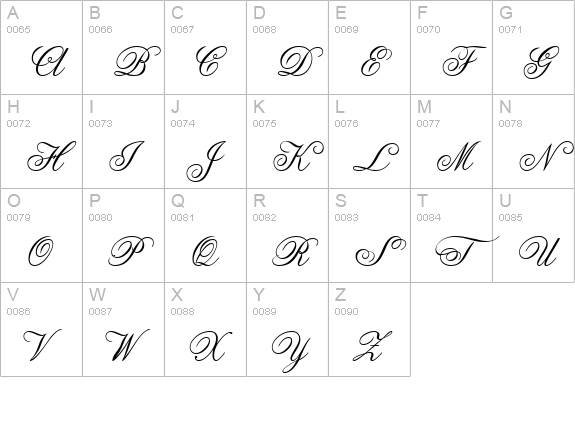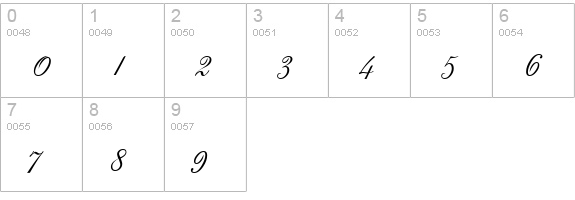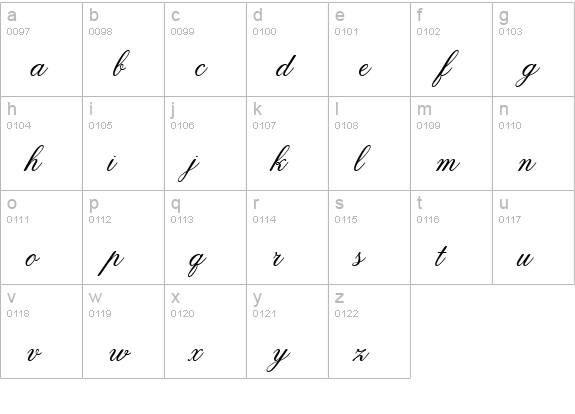
Anglia Script Standard is a beautifully crafted typeface that exudes elegance and sophistication. Its flowing curves and delicate strokes make it perfect for adding a touch of class to any design project. Whether you're working on invitations, branding materials, or packaging, Anglia Script Standard is sure to make a statement. What's even better is that Anglia Script Standard is completely free! You can download this exquisite font at FontsMarket.com, where you'll find a wide range of high-quality fonts for all your creative needs. Don't miss out on the opportunity to elevate your designs with Anglia Script Standard - download it today and let your creativity shine!